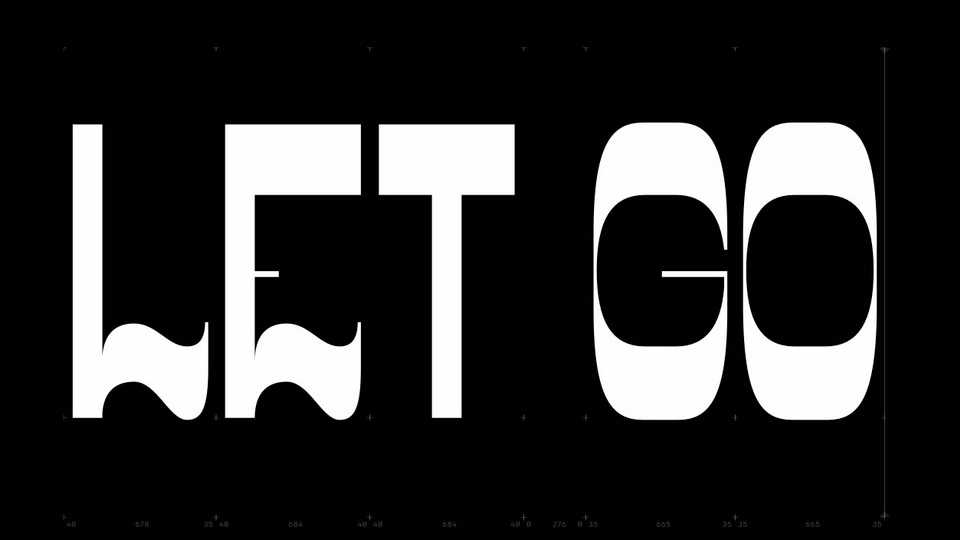
Download LetGo font an open-source display typeface that oscillates between expressive serifs and clean contemporary sans serifs. With LetGo font each character transitions smoothly, creating a dynamic and captivating typographic experience.
Designer: Toño Rodas